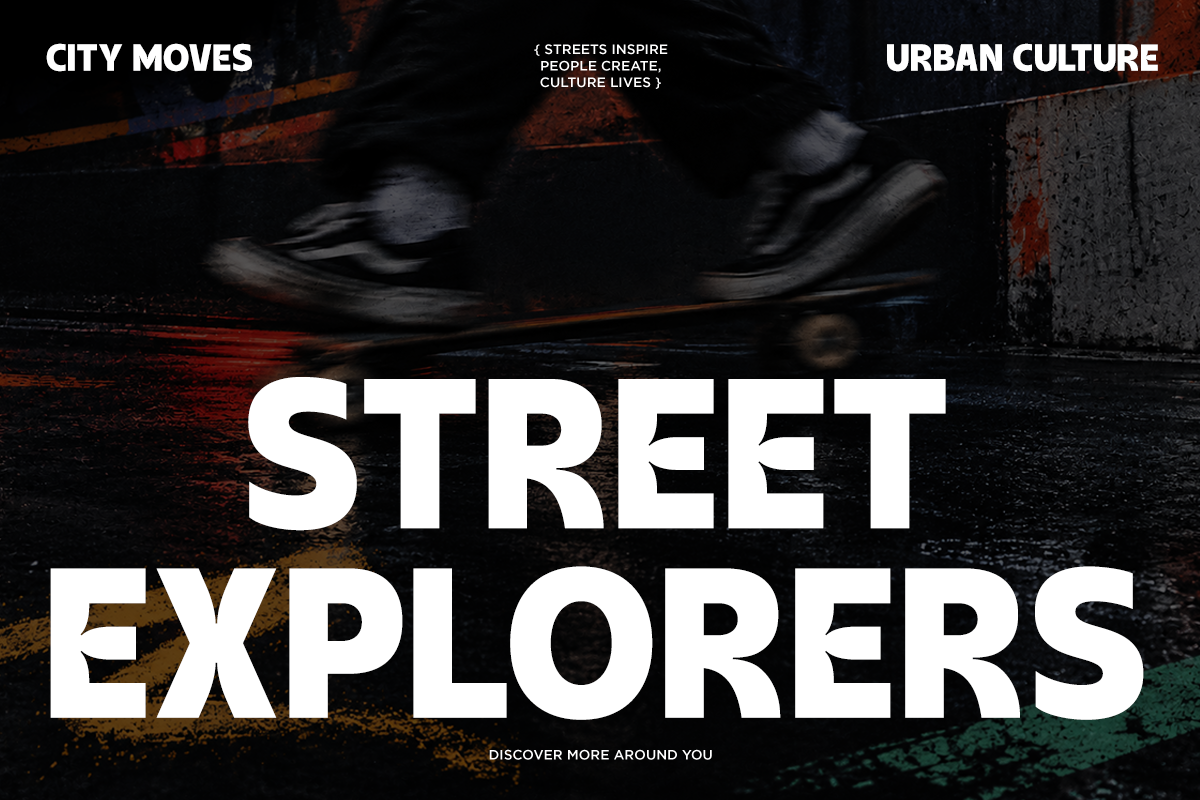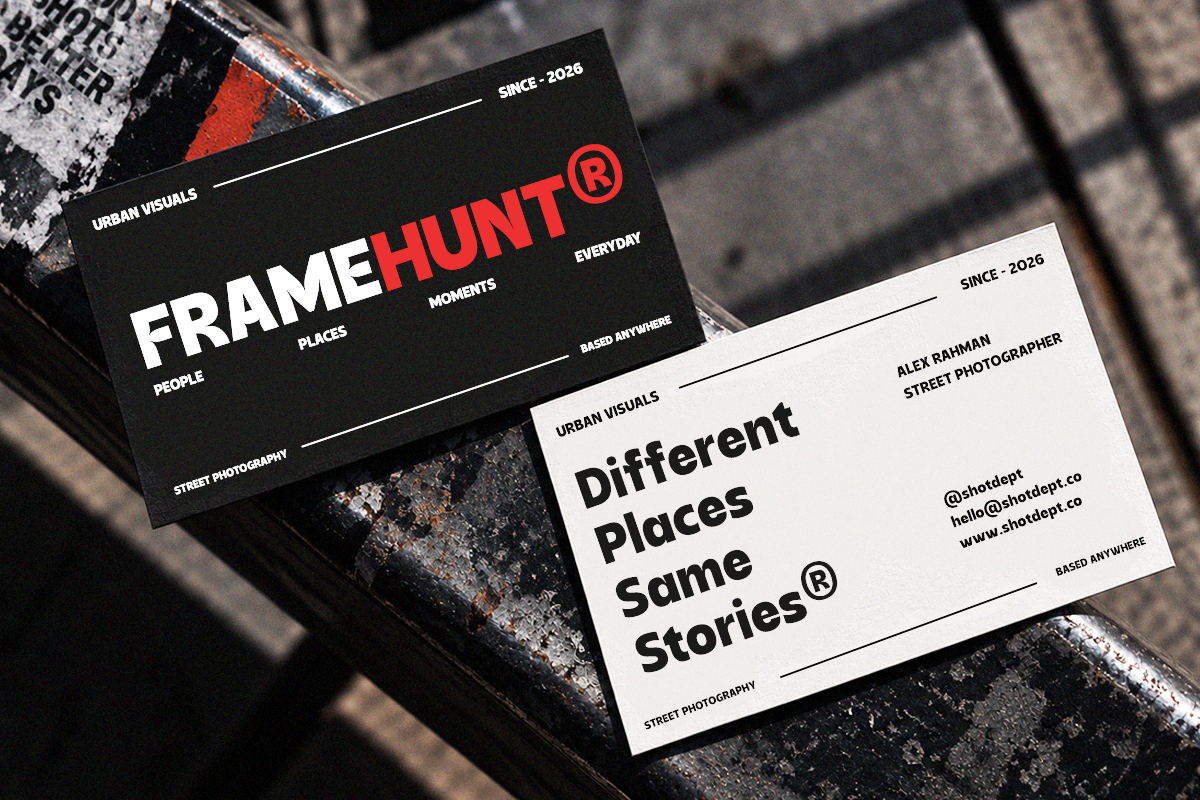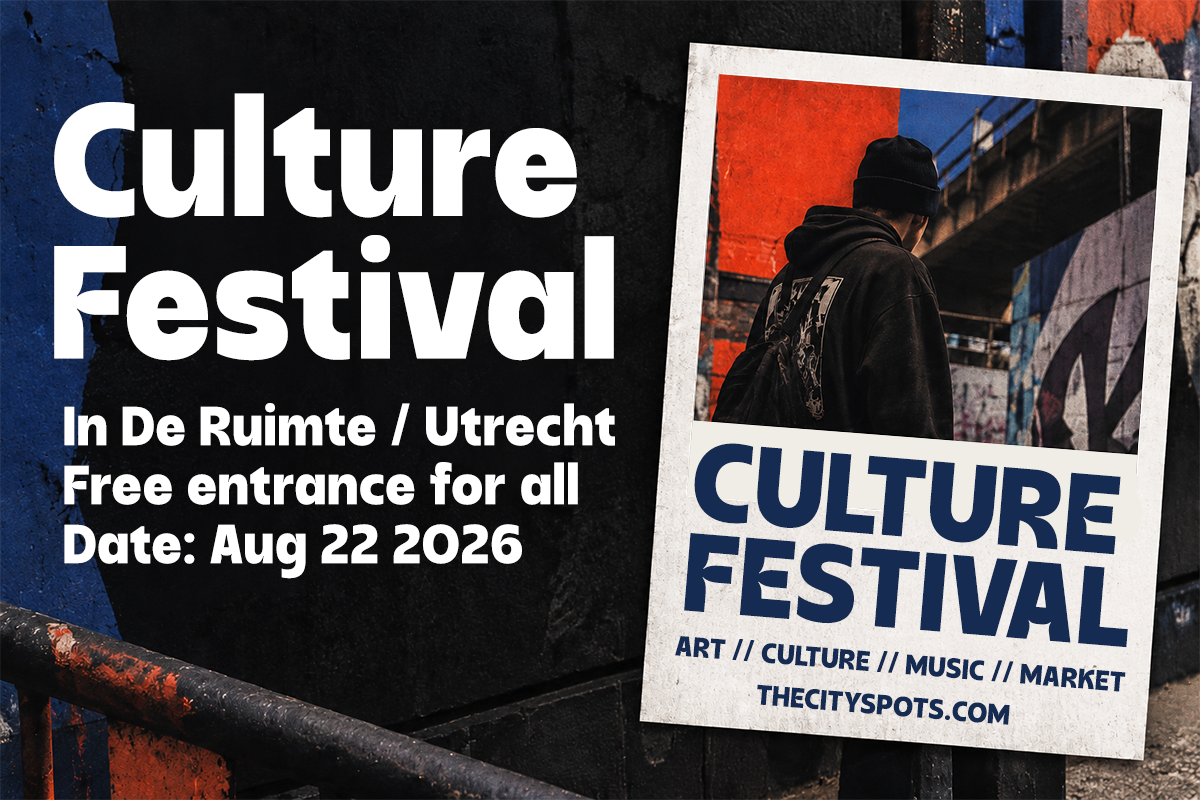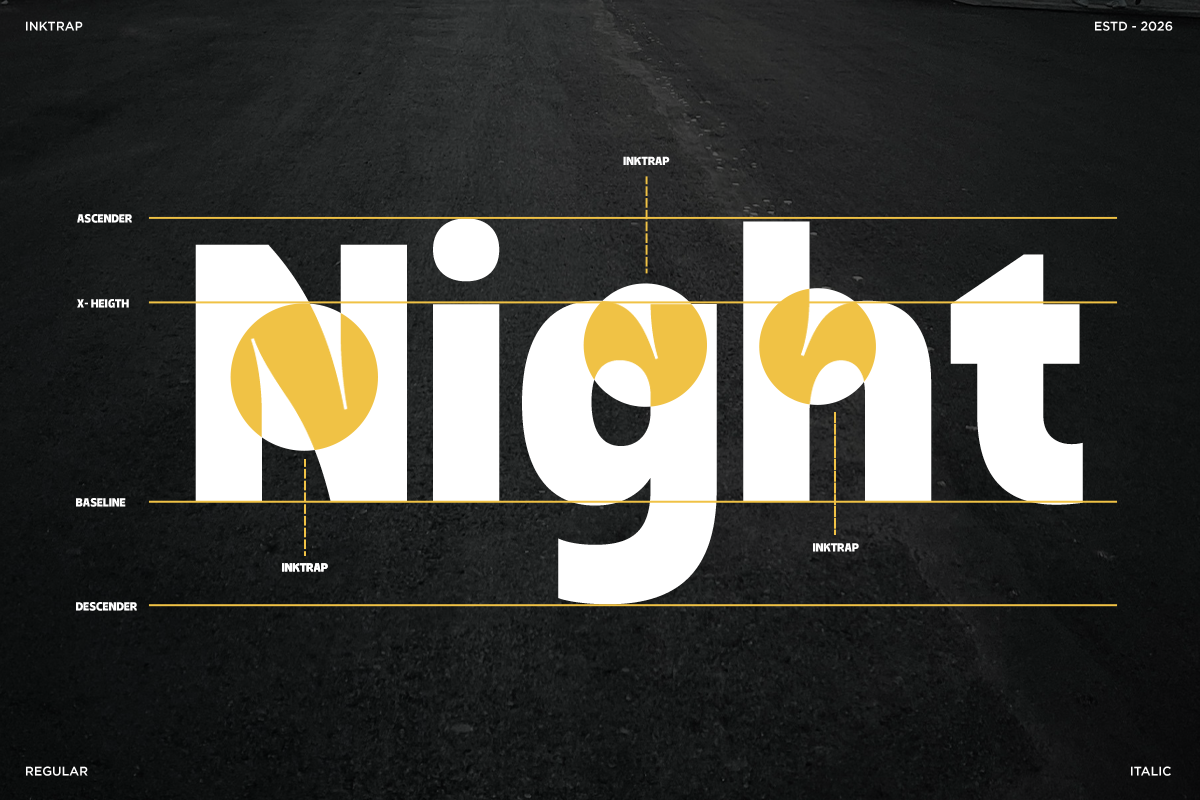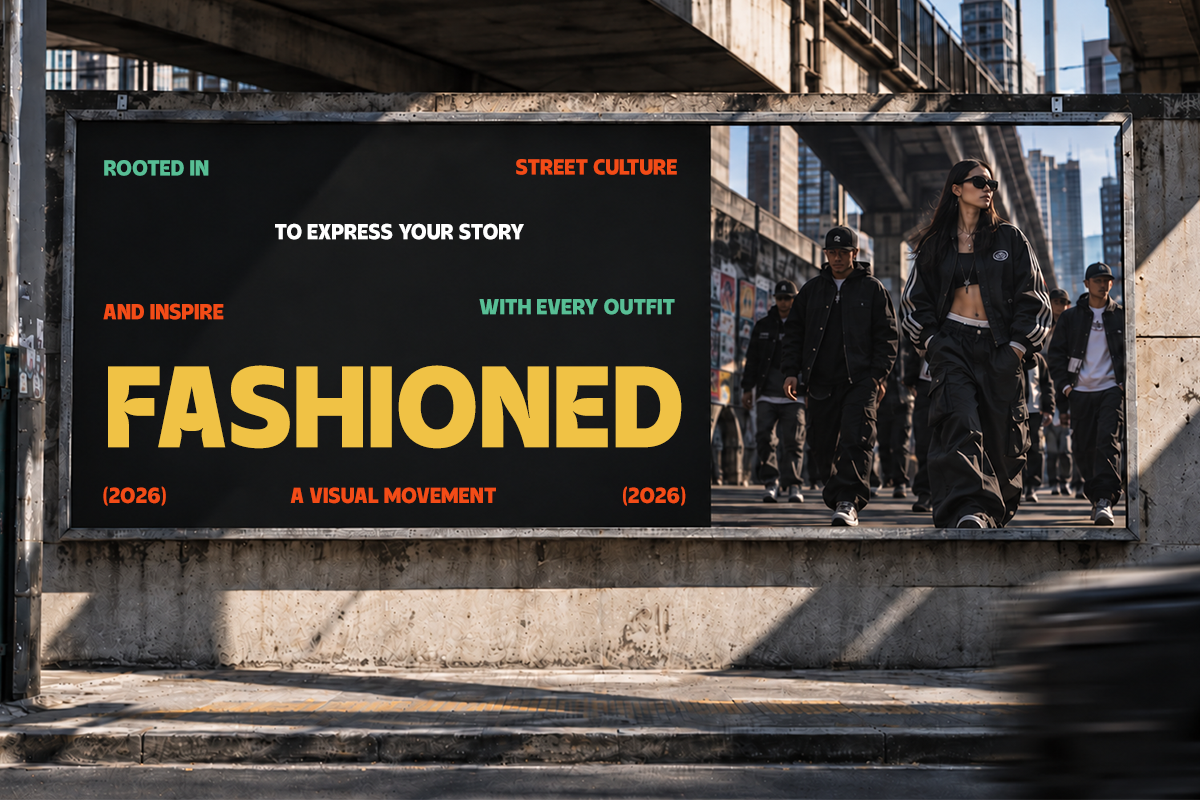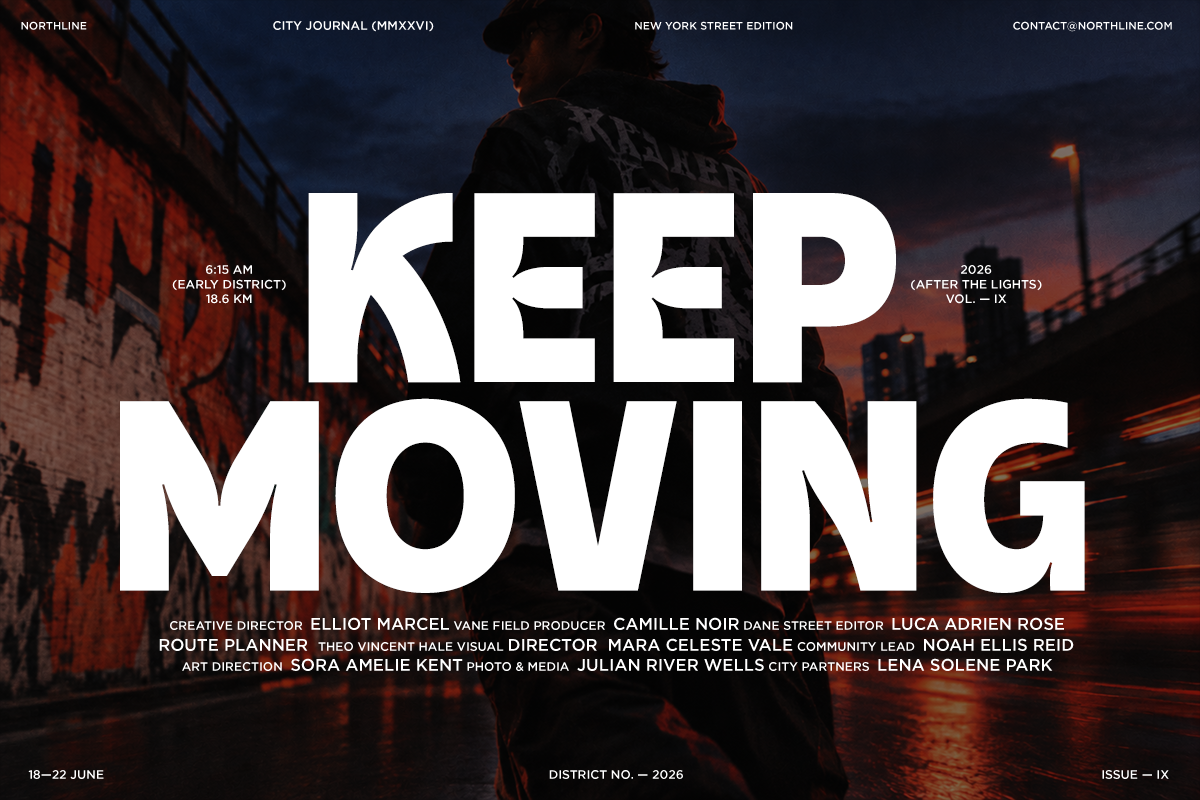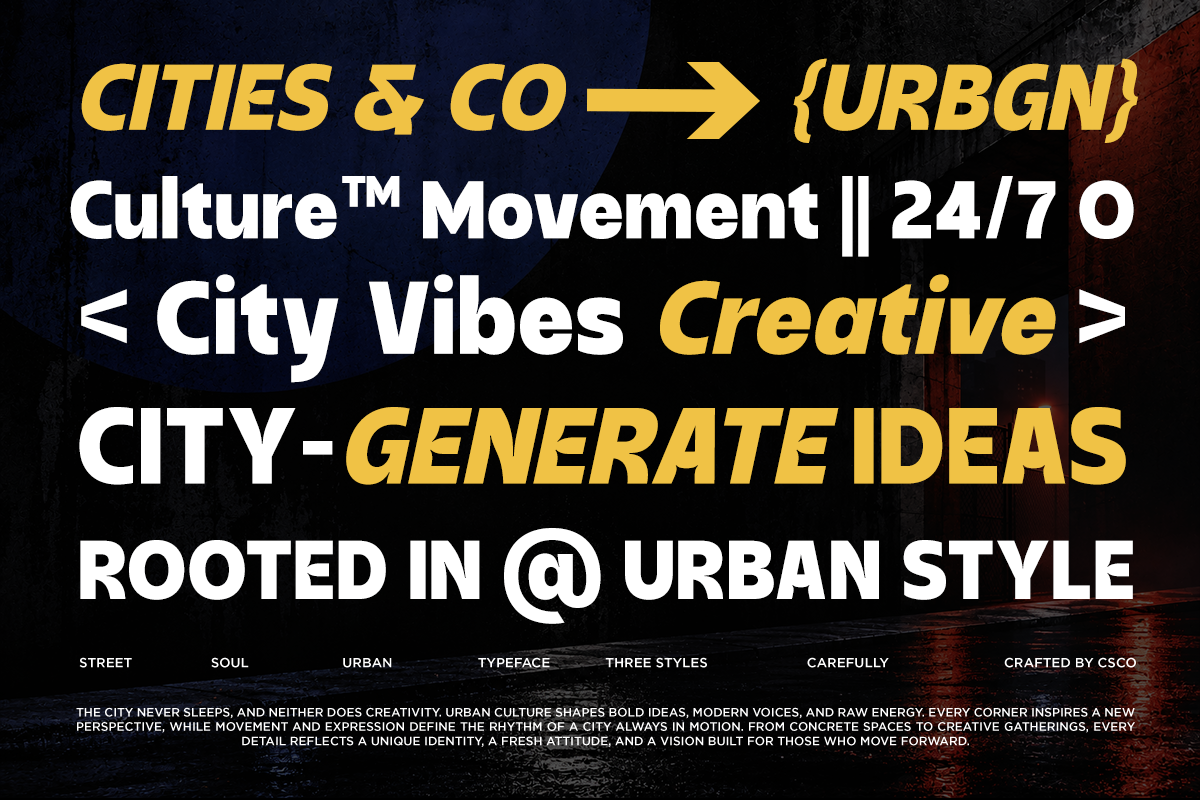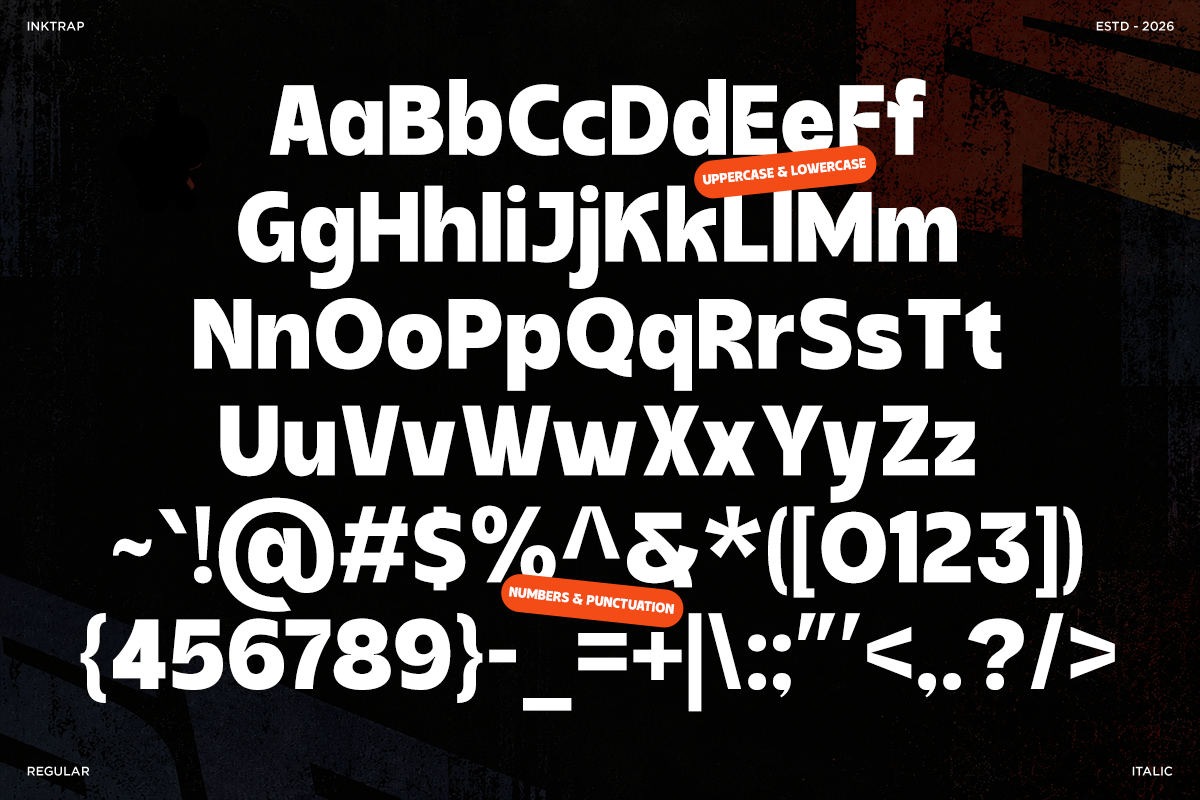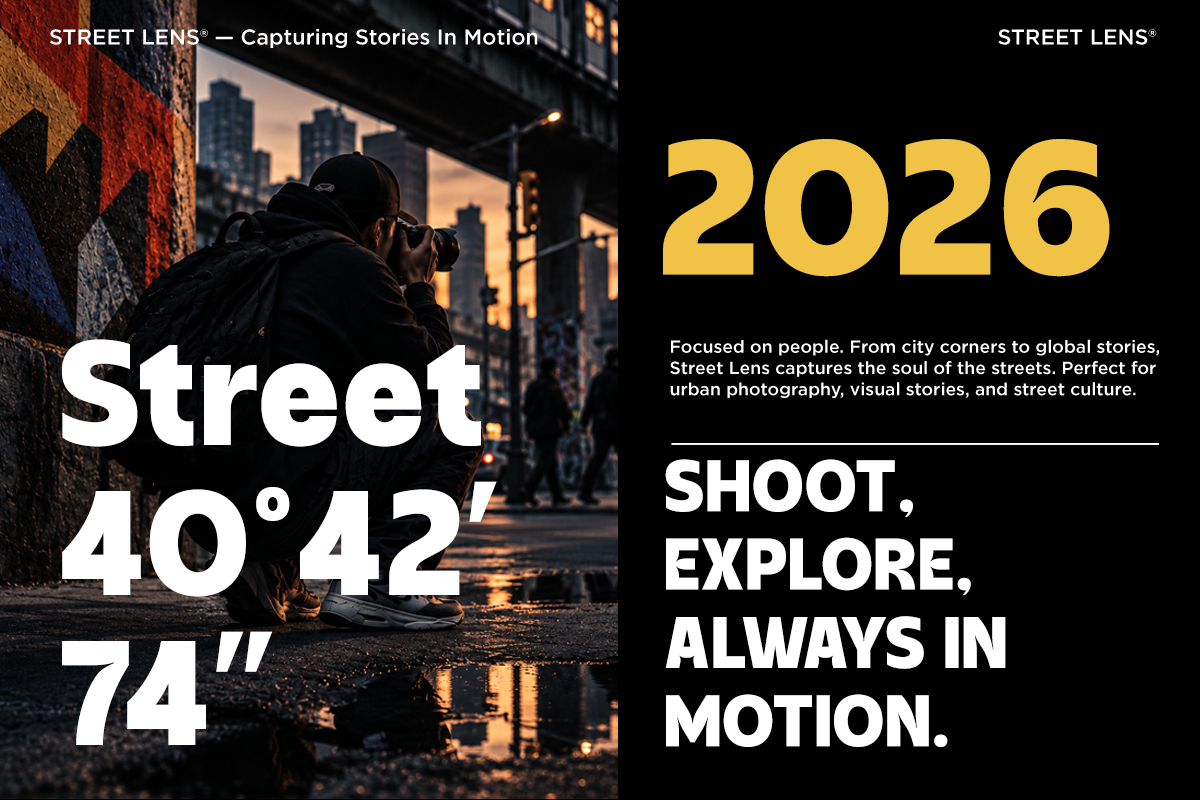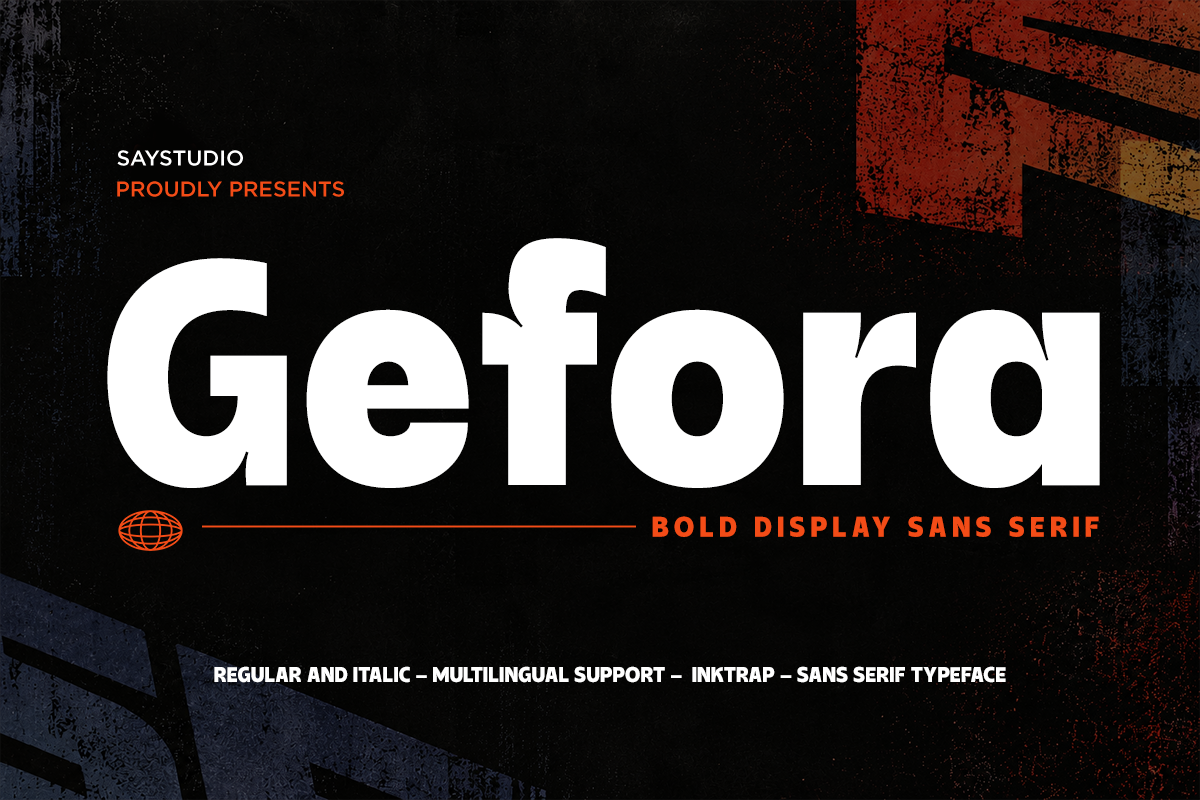
Bold Inktrap Sans Font - Gefora
Gefora is a bold inktrap sans serif font designed to bring a strong, modern, and distinctive character to contemporary typography. Its bold letterforms and subtle inktrap details create a powerful visual presence while maintaining a clean and versatile appearance across different design applications.
Perfect for branding, editorial layouts, posters, fashion campaigns, packaging, advertising, headlines, logos, and social media graphics, Gefora is built for projects that need confident and expressive typography. Its bold structure makes it especially effective for large headlines, statement messages, and impactful visual identities.
From modern branding and magazine covers to creative campaigns, Gefora adds a contemporary typographic edge to your designs. Use it for logos, apparel, posters, packaging, advertising, editorial projects, and other creative work where bold typography needs to stand out.
Regular and Italic
Number, Symbol, and Punctuation